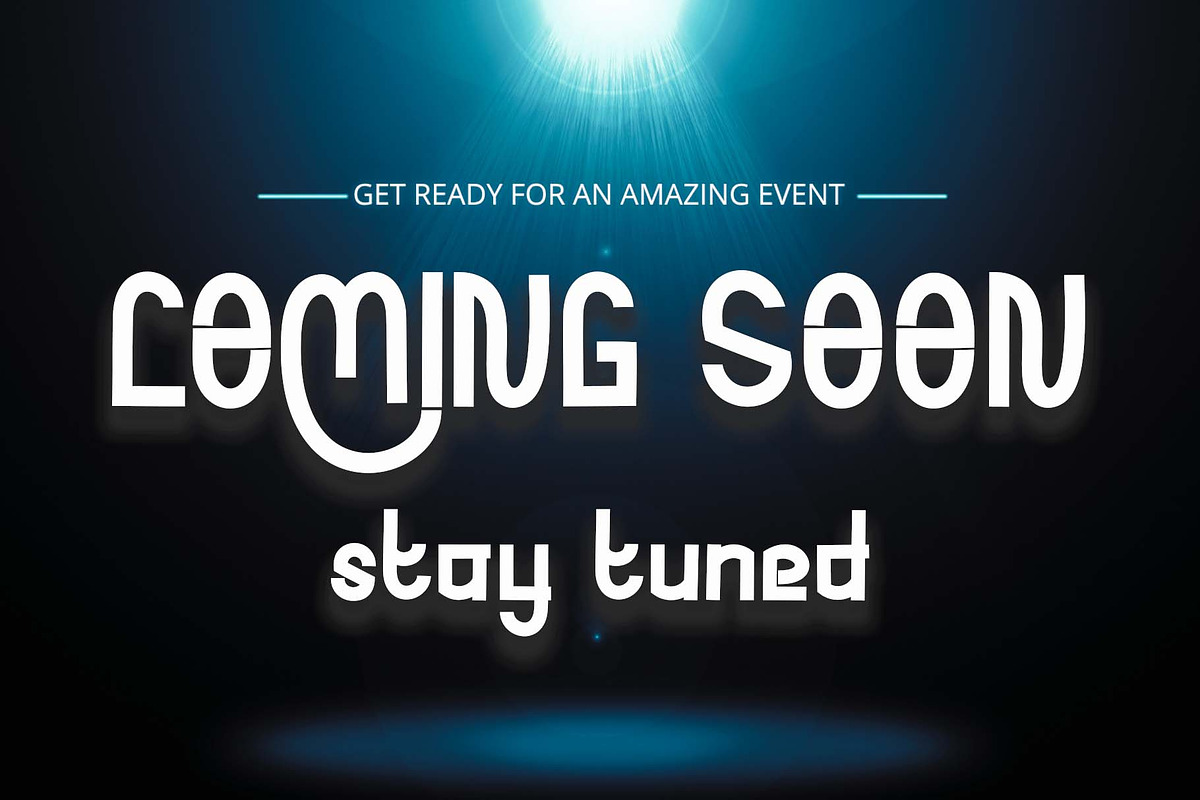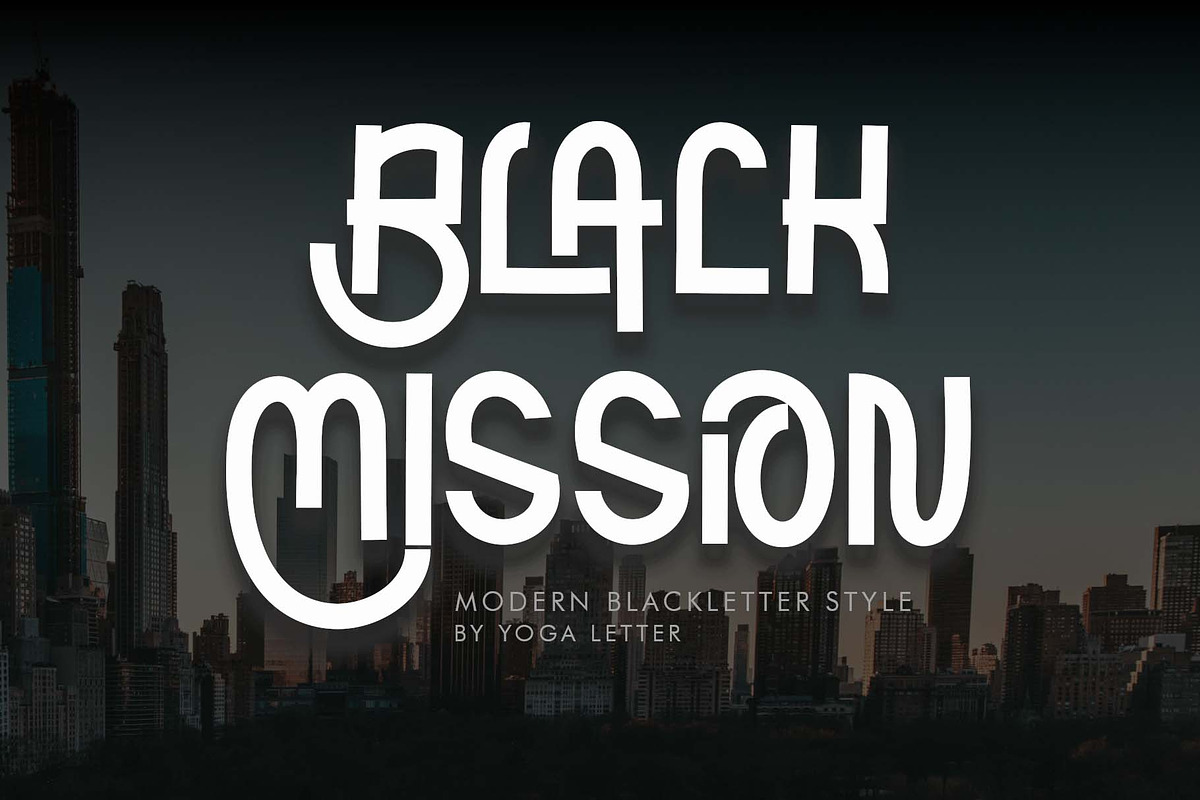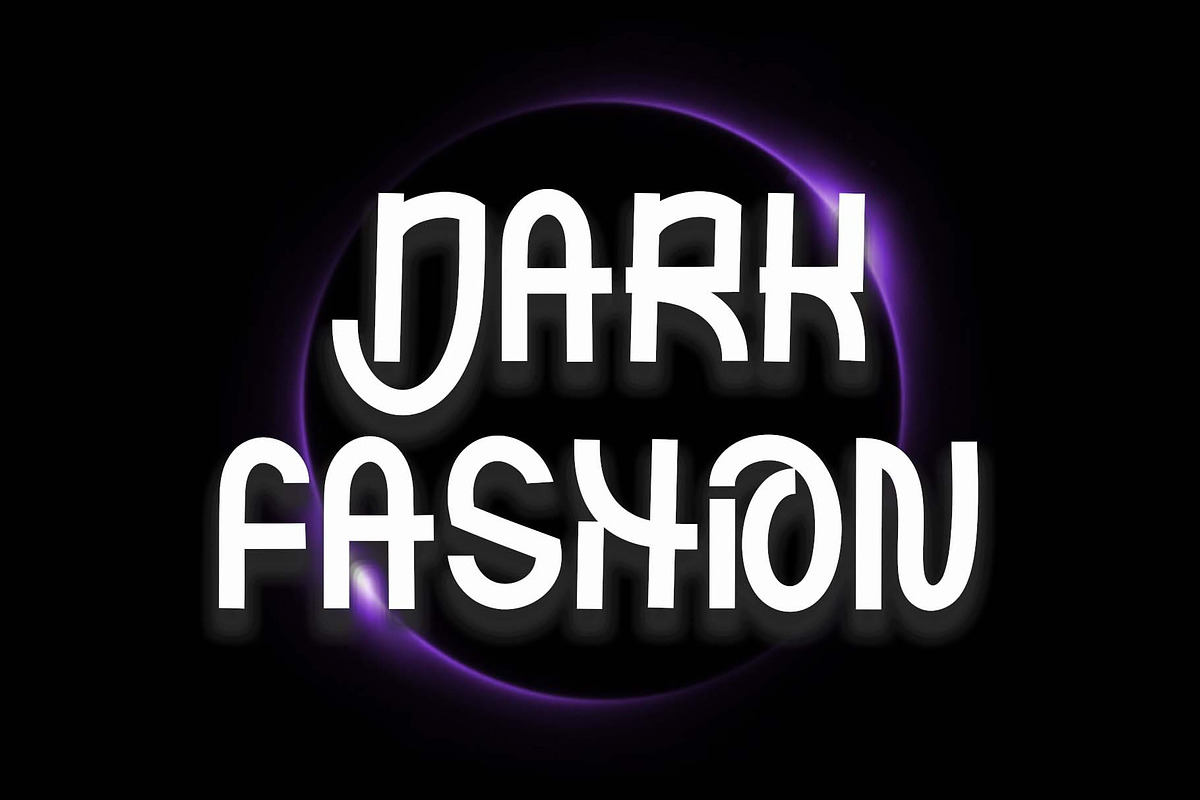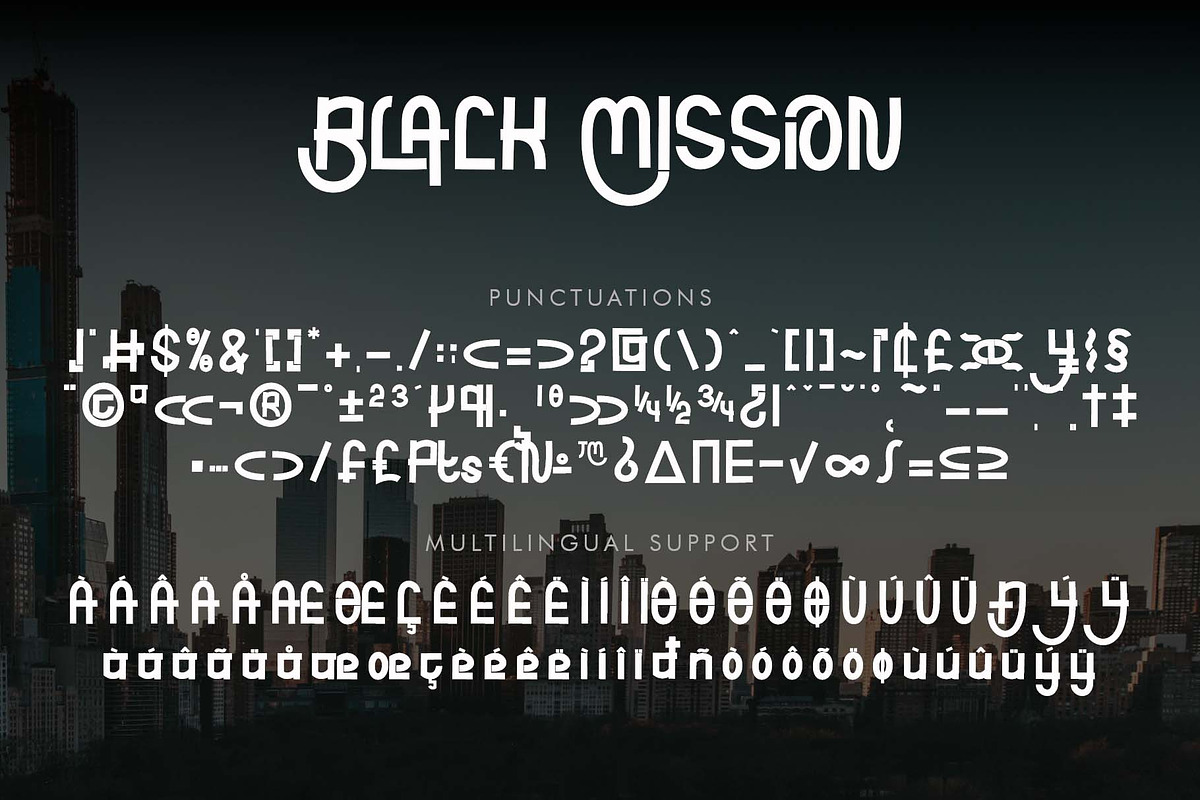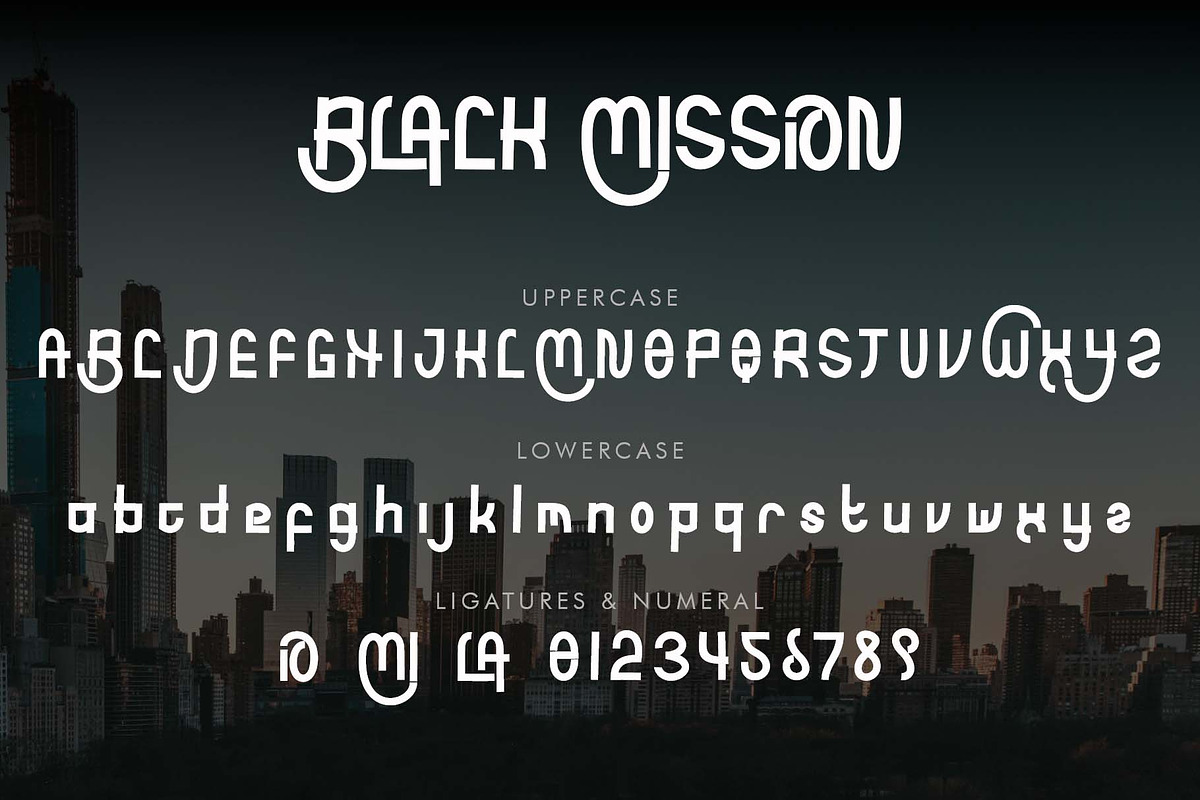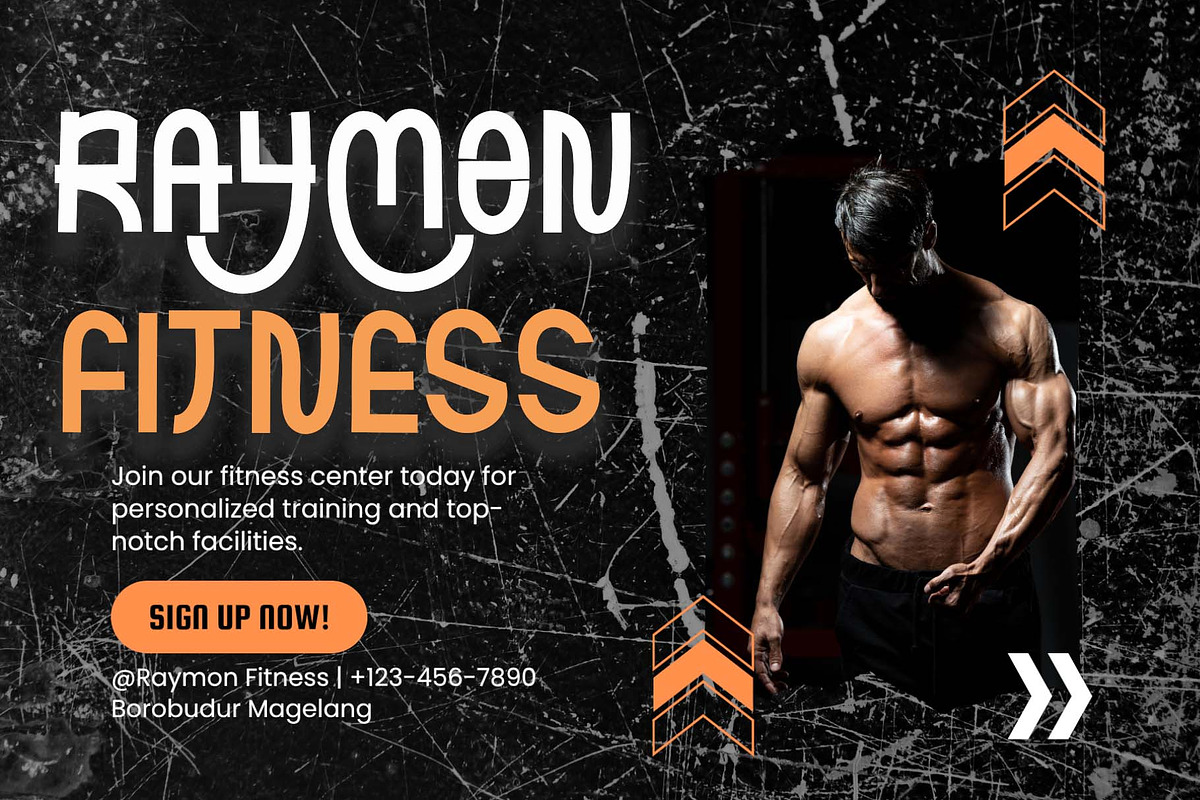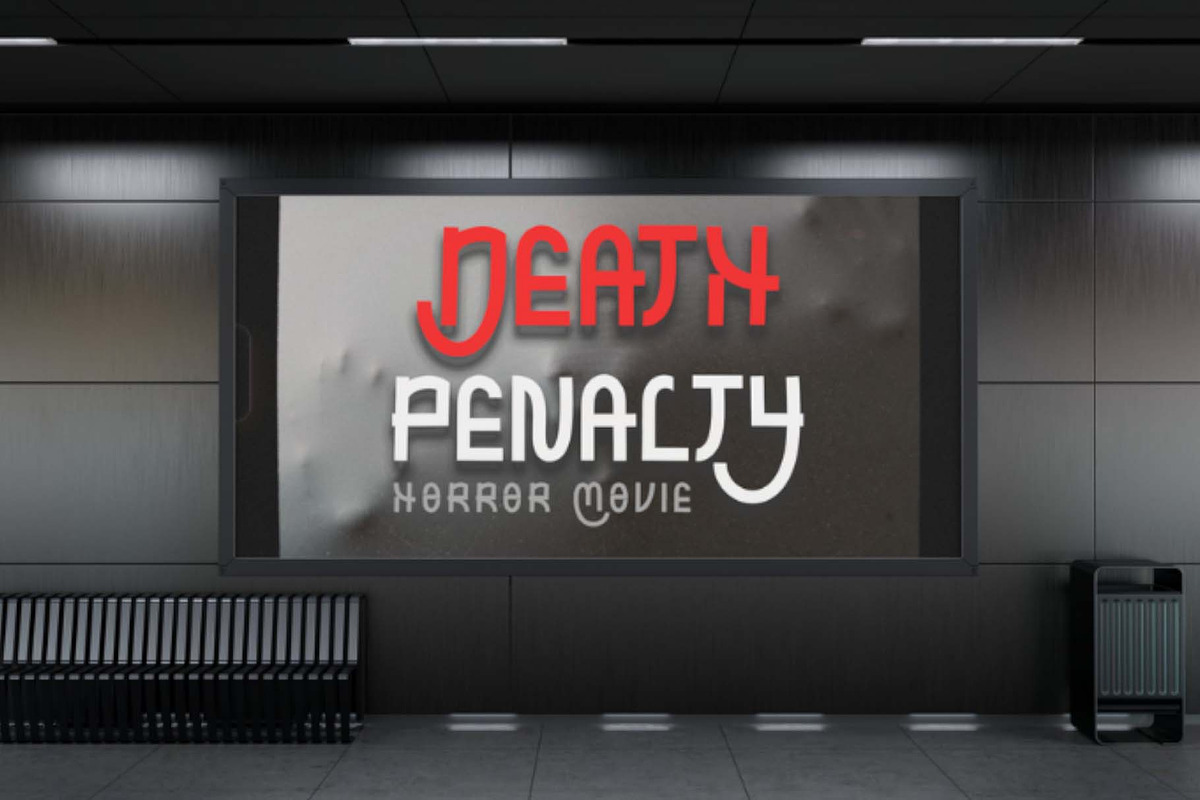
Black Mission
"Black Mission" is an elegant and modern blackletter font. It features uppercase and lowercase letters, ligatures, numerals, punctuations, and multilingual support. It's perfect for Halloween, Christmas, business branding, stickers, posters, prints, tattoos, social media, and more.